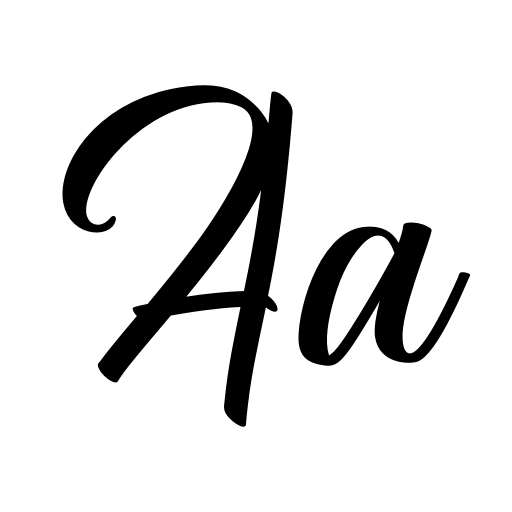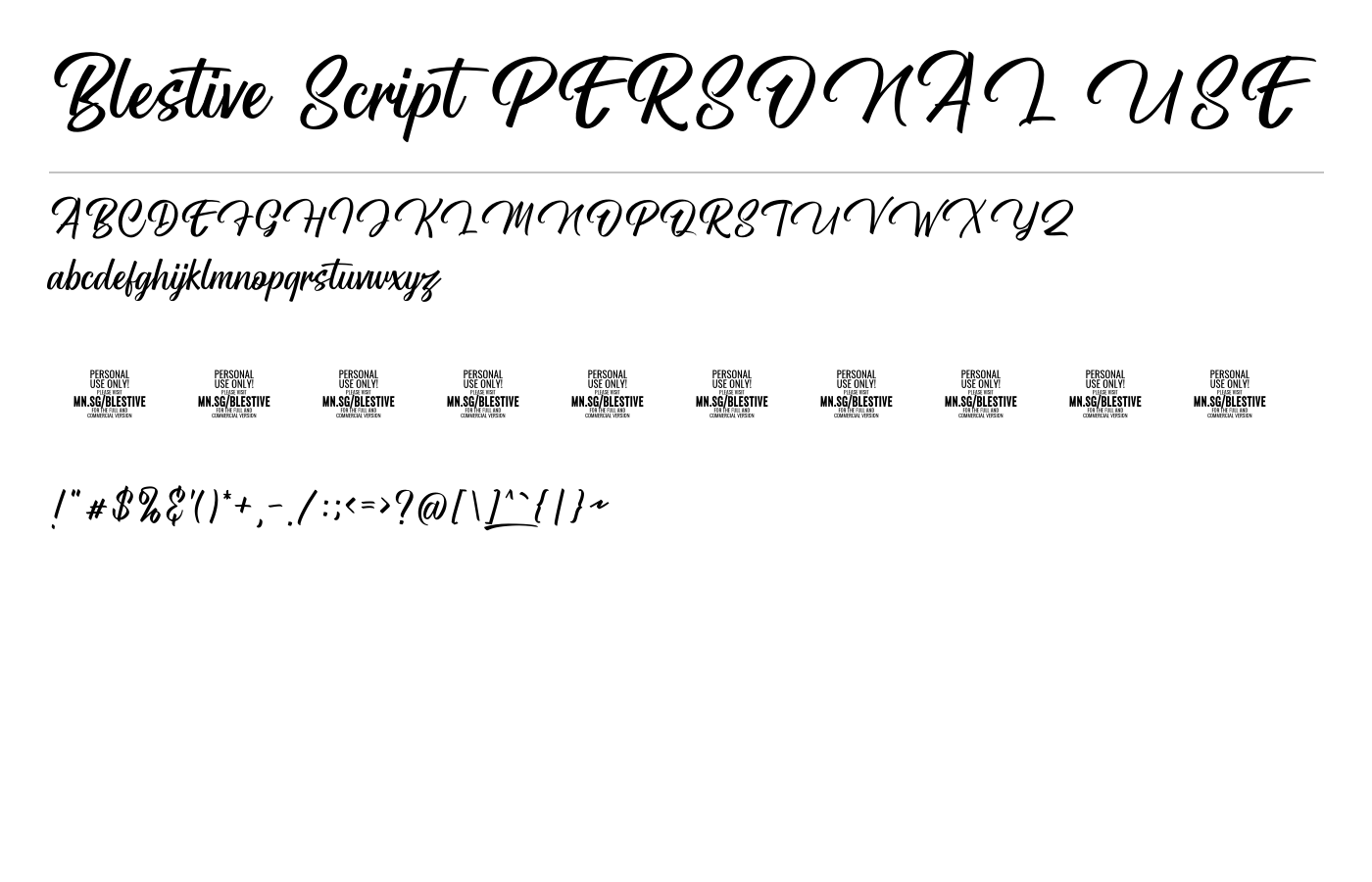
Blestive Script is a stylish and graceful script font featuring smooth, flowing strokes with a moderate contrast that gives it a handwritten and elegant feel. Its well-balanced letterforms, including distinctive loops and curls, make it perfect for projects that need a personal, creative touch such as invitations, branding, and social media graphics. This font works wonderfully for adding a chic, sophisticated vibe while maintaining readability and charm.
Blestive Script PERSONAL USE Font
About Blestive Script PERSONAL USE Font
| Font family | Blestive Script PERSONAL USE Font |